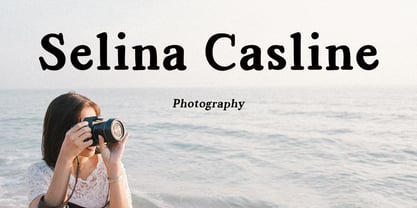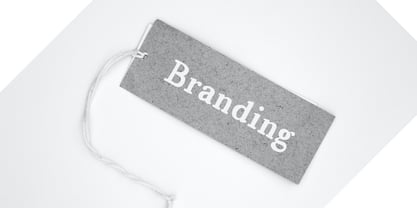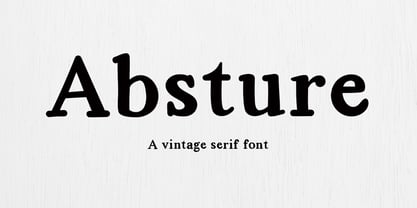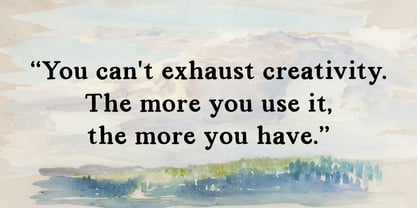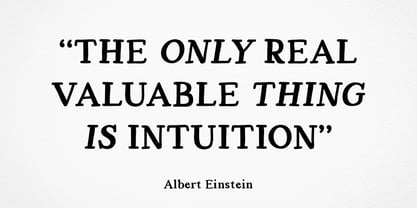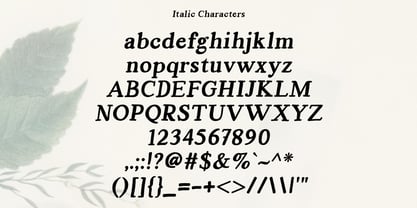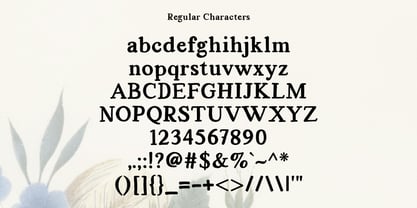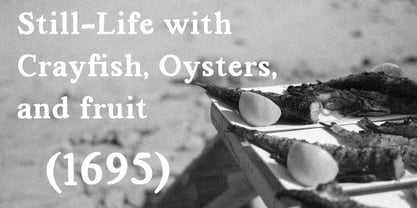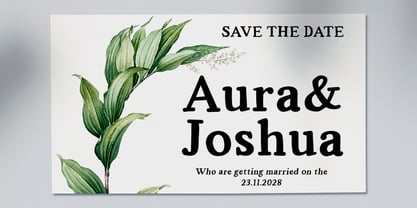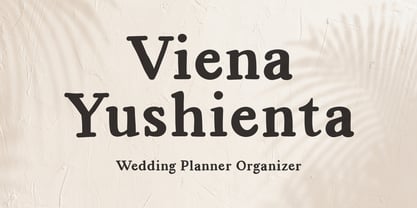
Absture
Absture – Vintage Serif Font
Absture is a vintage serif font that brings a classic, elegant, and bold character to your designs. Featuring strong letterforms, subtle contrast, and distinctive serif details, this typeface blends retro charm with a modern touch.
Perfect for a wide range of creative projects, including:
Logo and branding
Posters and editorial design
Product packaging
Book and magazine titles
Vintage-style social media content
Absture is carefully crafted to deliver a warm, authentic, and timeless feel, making it an excellent choice for brands that want to stand out with a refined vintage aesthetic.
Features:
Uppercase & lowercase letters
Numbers & punctuation
Bold, highly legible style
Versatile for both display and text use
Add an elegant nostalgic touch to your next project with Absture!